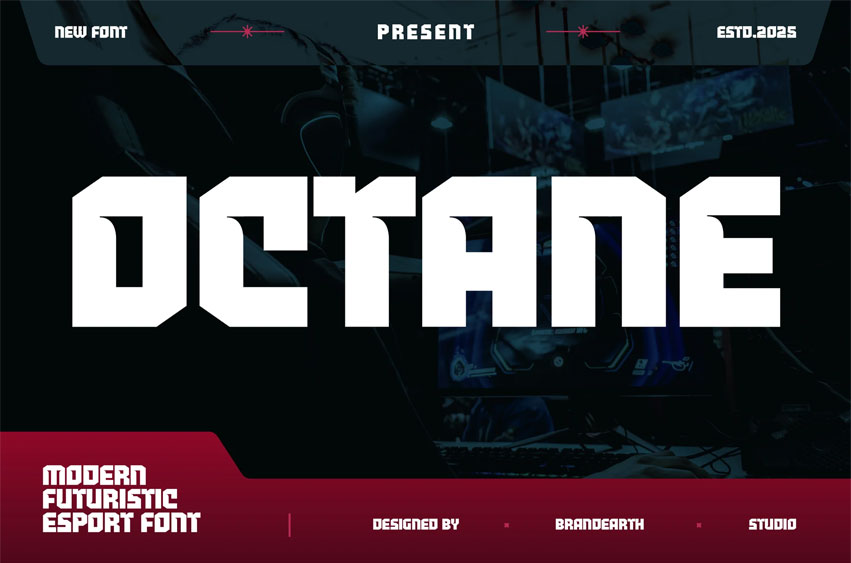
Octane Font is a bold, condensed sans-serif font designed for maximum impact, blending modern futuristic styling with strong geometric shapes. Perfect for esports branding, technology logos, automotive designs, racing posters, and sport-themed layouts, Octane delivers a professional and premium look with a distinctive tech-inspired edge. Its all-caps design and multilingual support make it versatile for gaming typography, corporate branding, car advertisements, and modern bold headlines. Whether for digital interfaces, merchandise, or event graphics, Octane stands out as a strong, heavy metal-inspired typeface for competitive and high-energy projects.